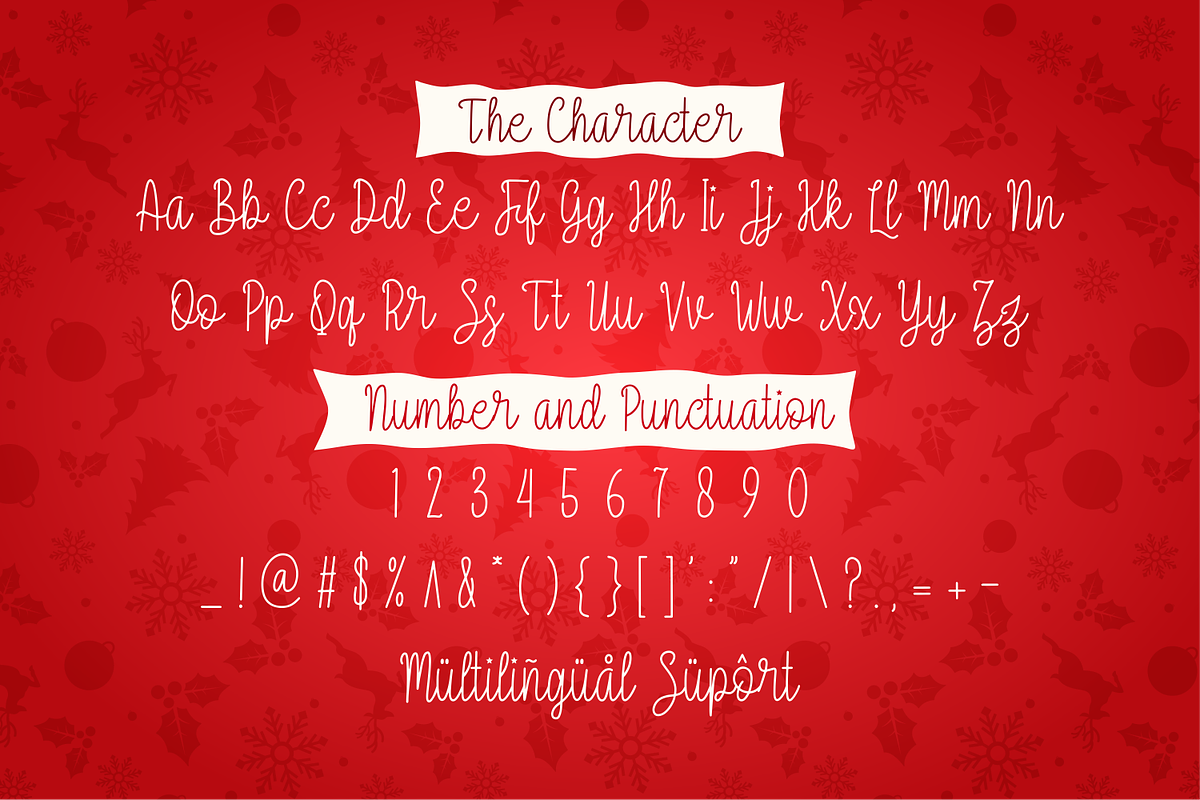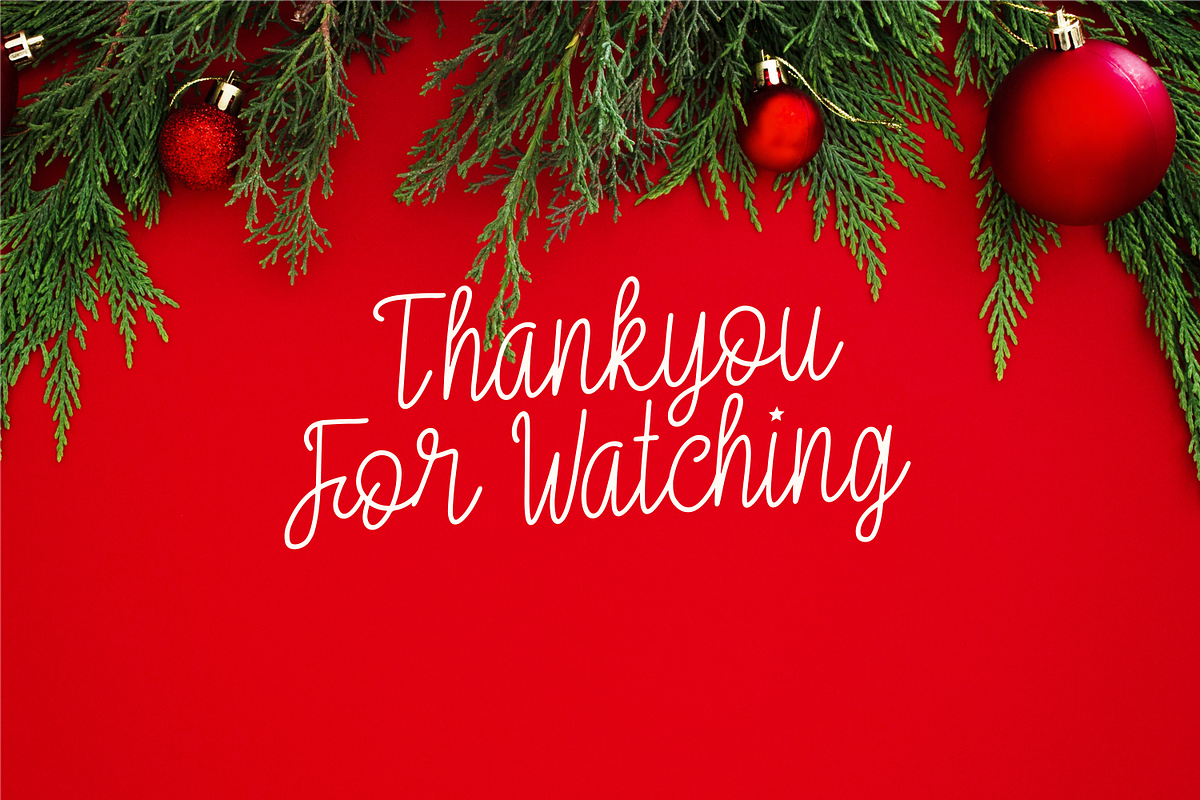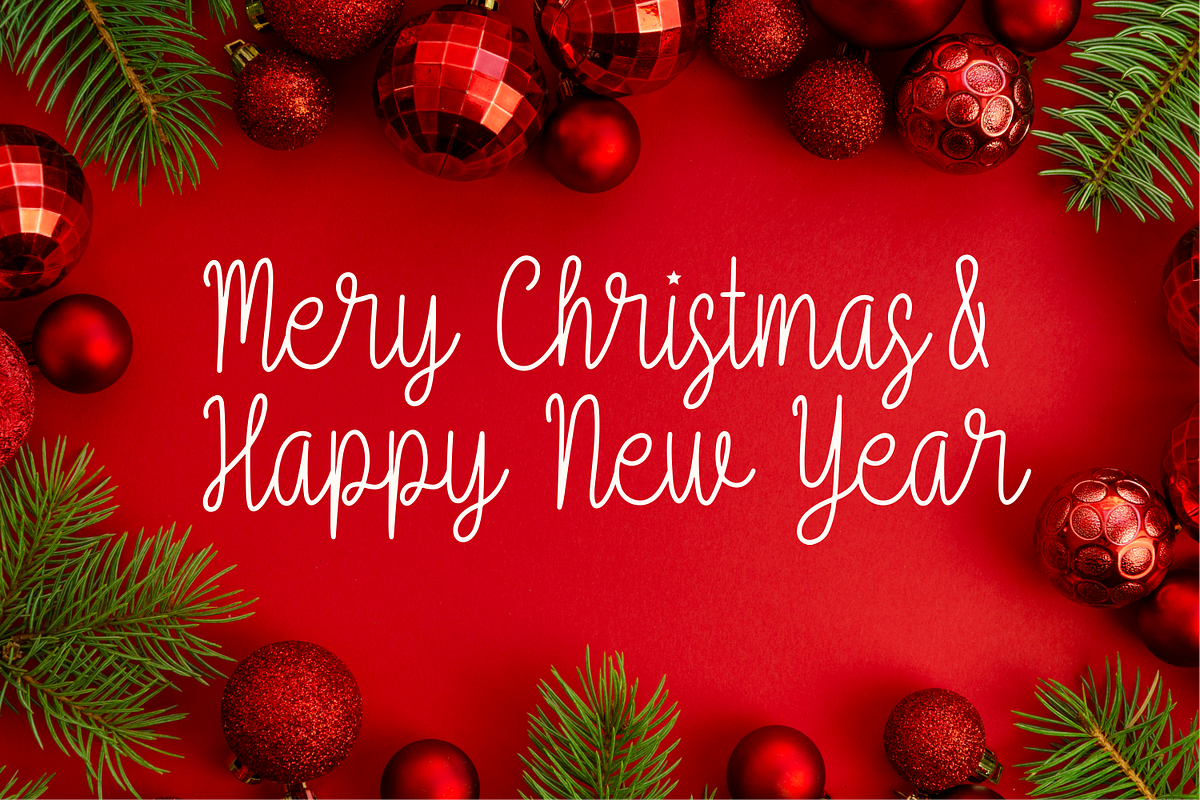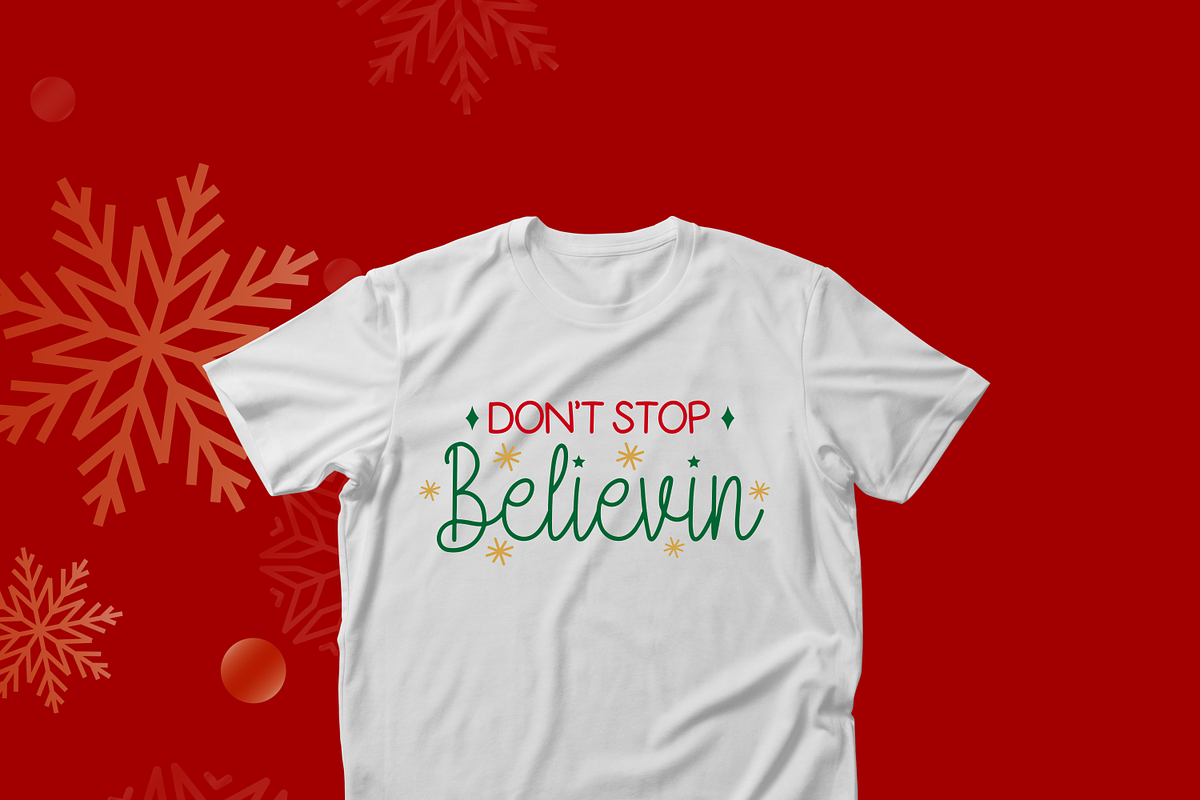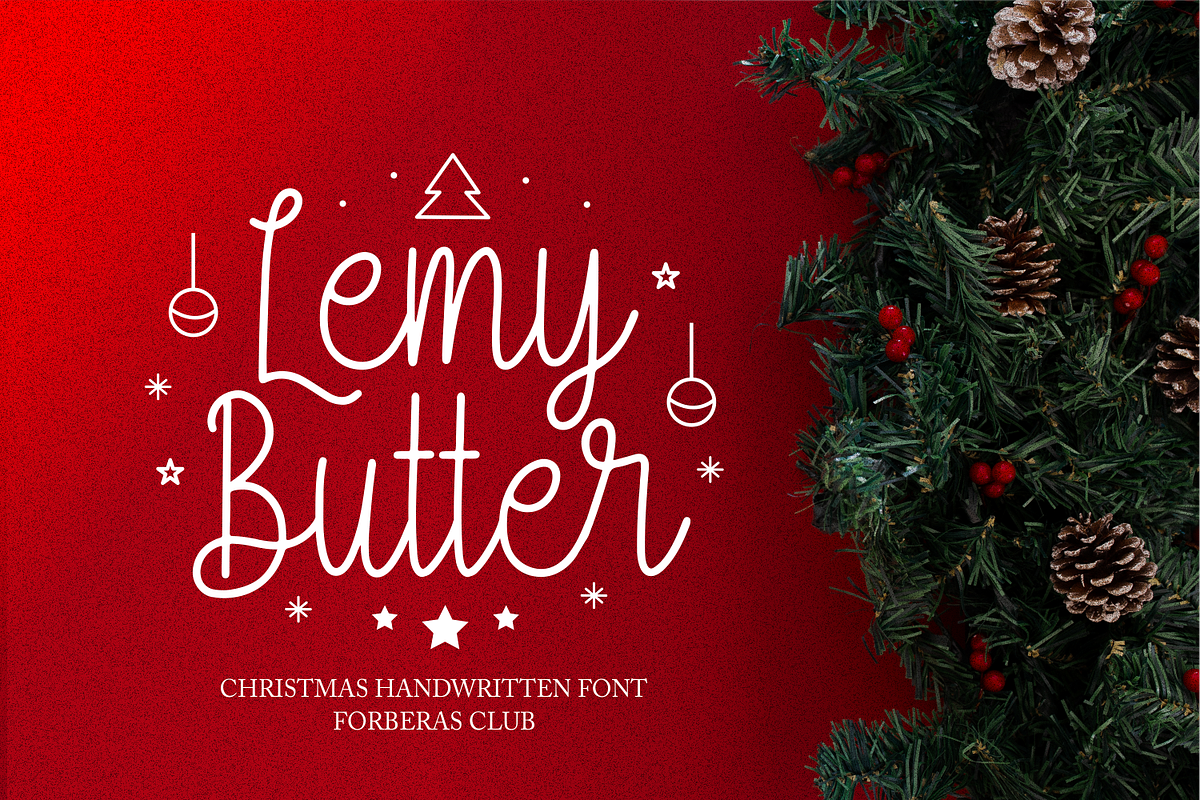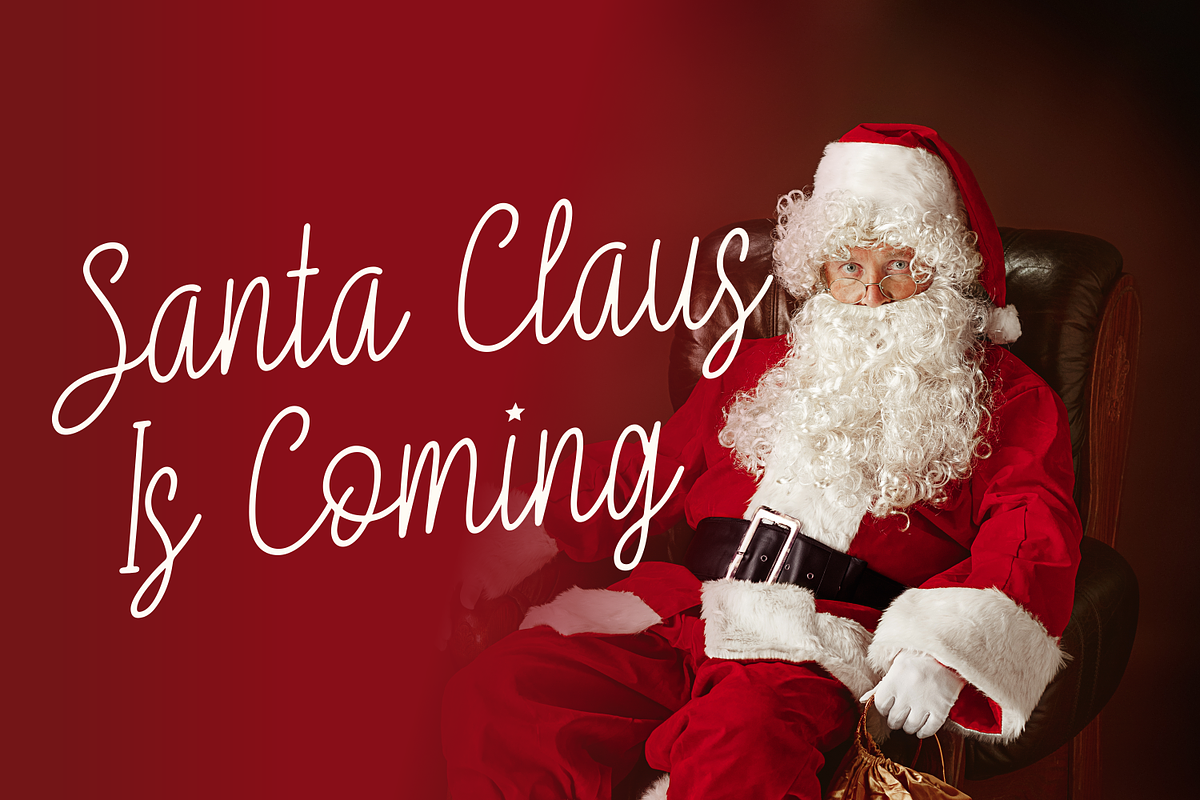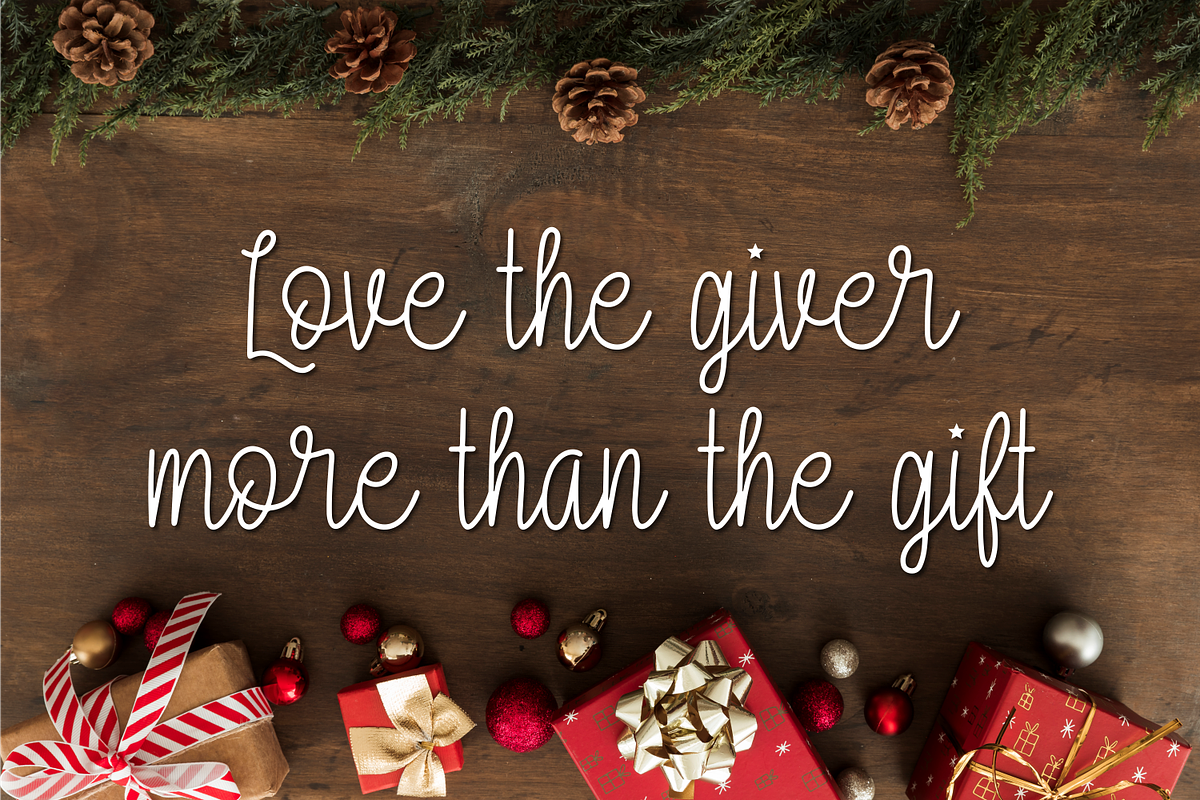
Lemy Butter | Script Handwritten
Introducing Lemy Butter by Forberas
Modern and beautiful handwritten script font! Great for wedding greeting cards, logos, branding materials, Invitation, business cards, quotes, posters, Cricut artwork and more!